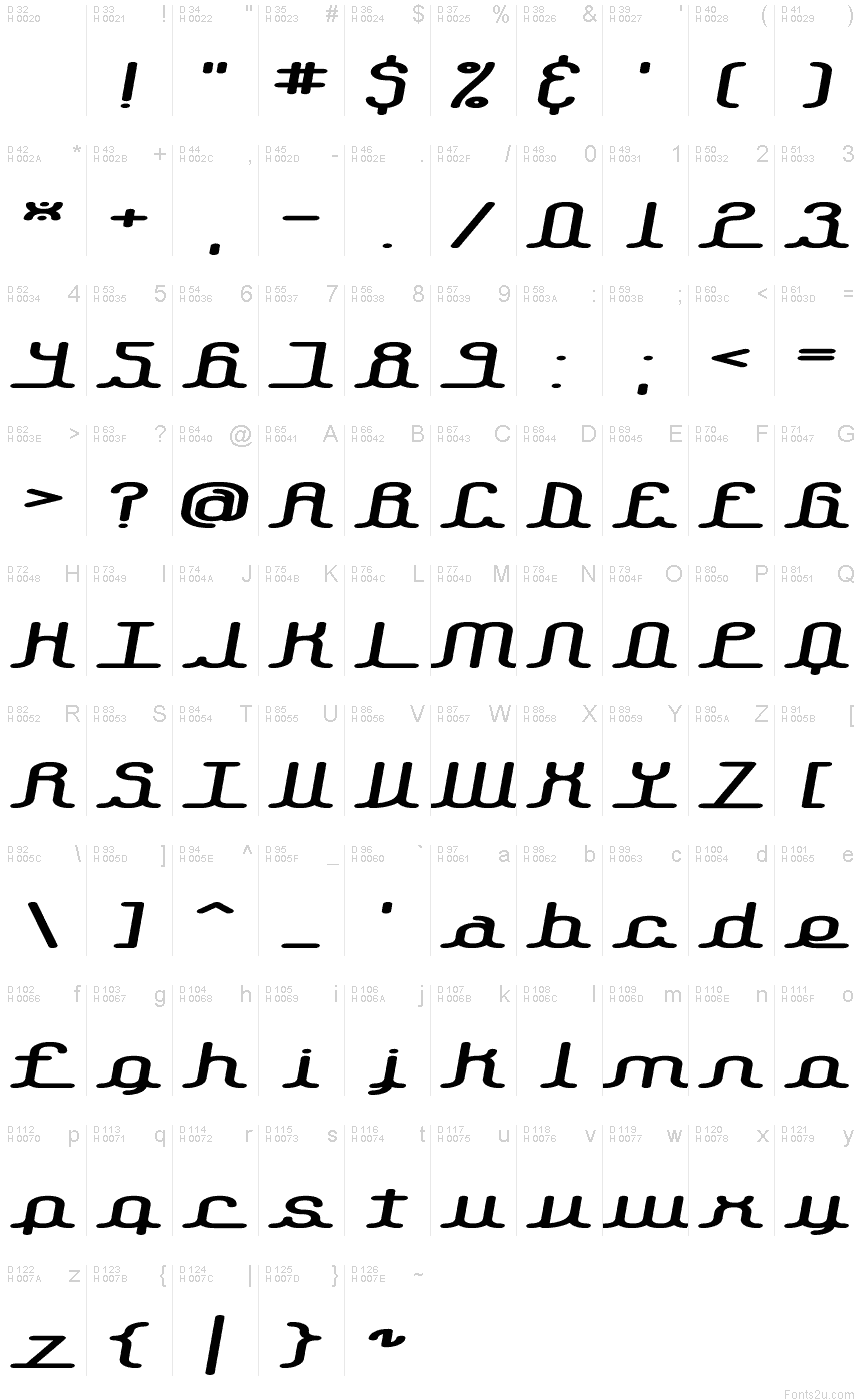
Lowdown BRK
Lowdown BRK font by AENIGMA FONTS is a free retro display font with joined lowercase forms and a long, low sweeping baseline. Its rounded letter shapes, narrow openings, and tall rising strokes give it a smooth lowrider feel without adding extra ornament.
Lowdown BRK works well for music posters, streetwear logos, car event flyers, and vintage-style title art where that low, stretched rhythm matters. It also suits banner text, labels, and short packaging lines that need a distinctive script-like display treatment with a custom drawn shape.